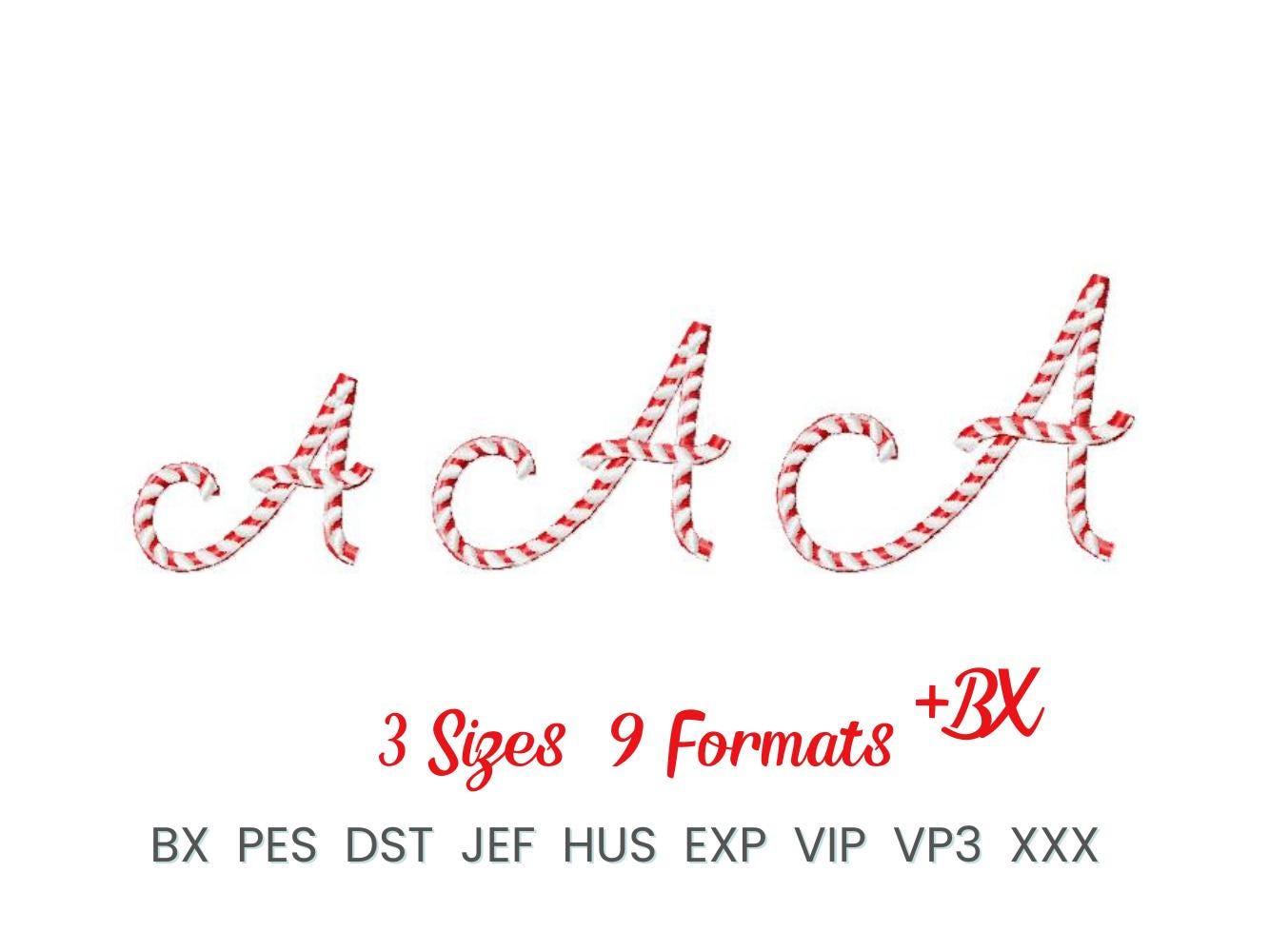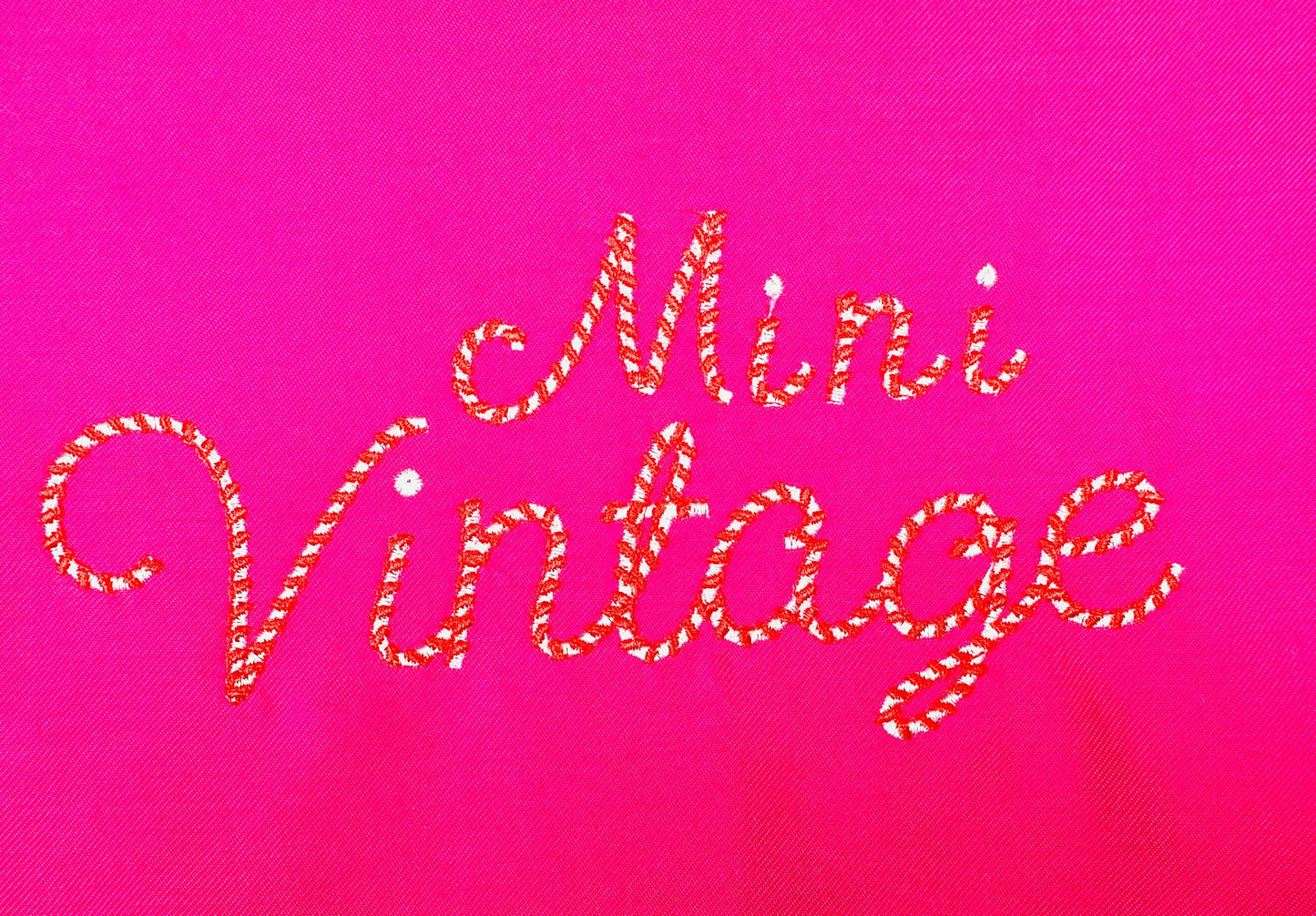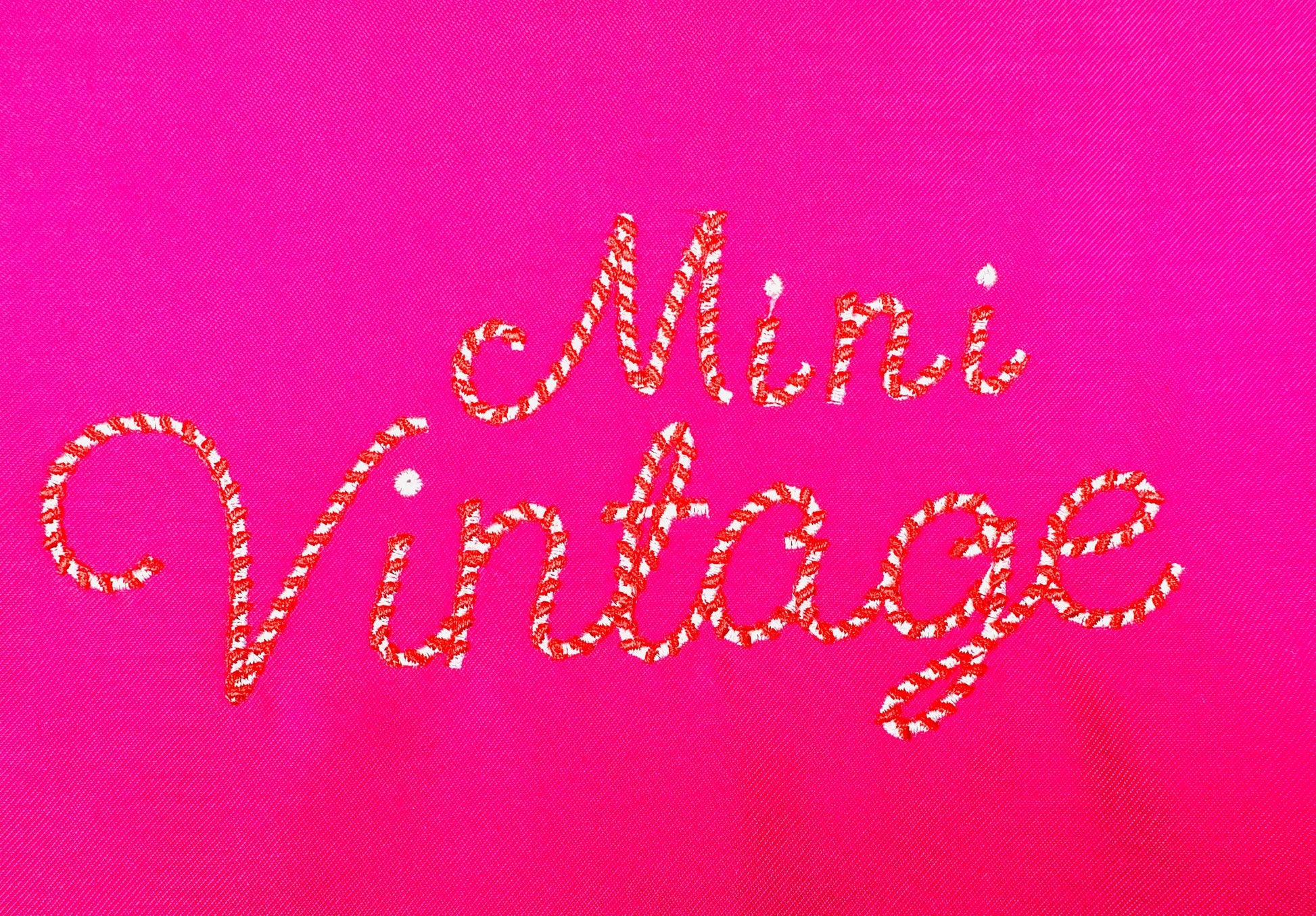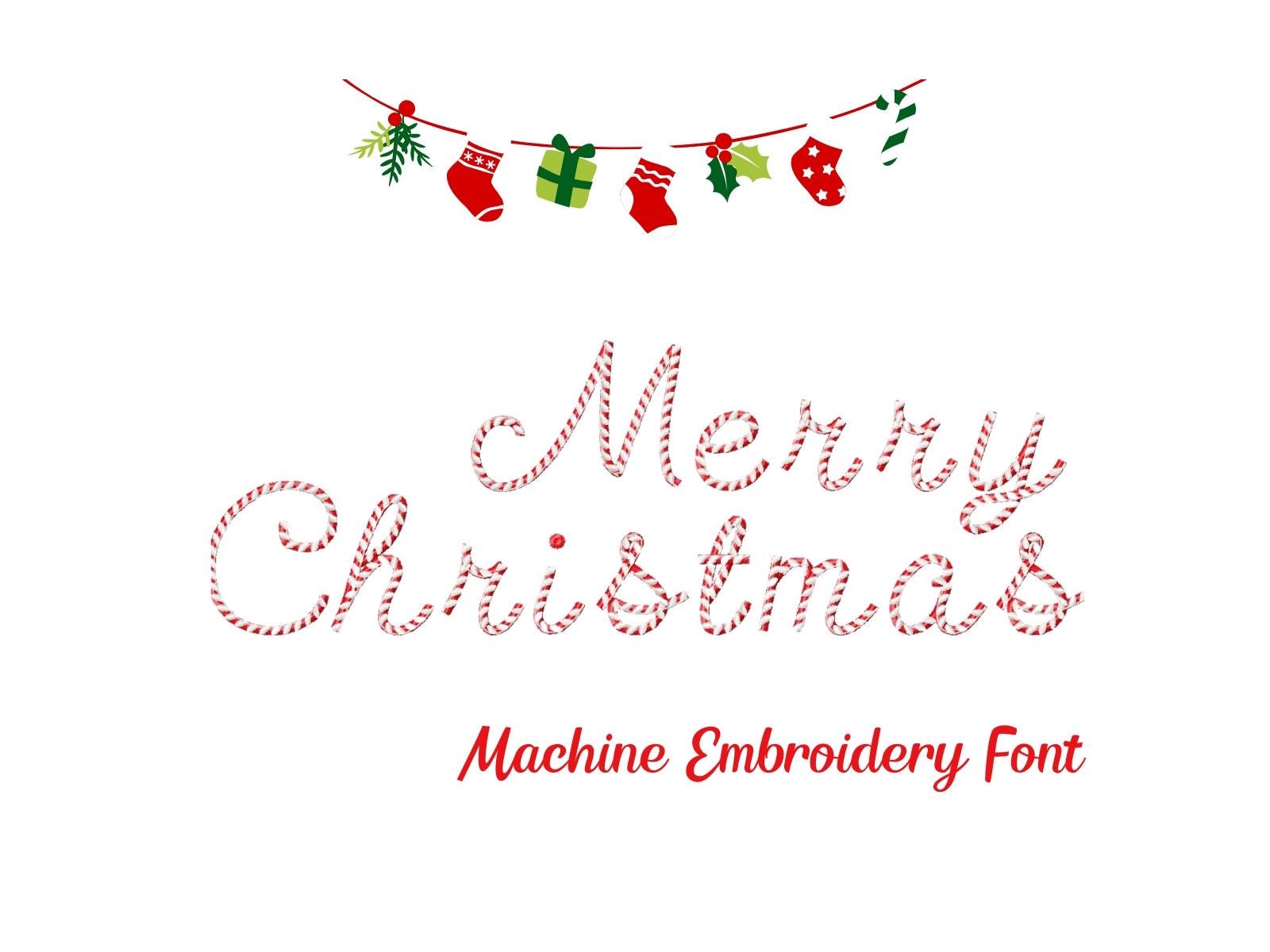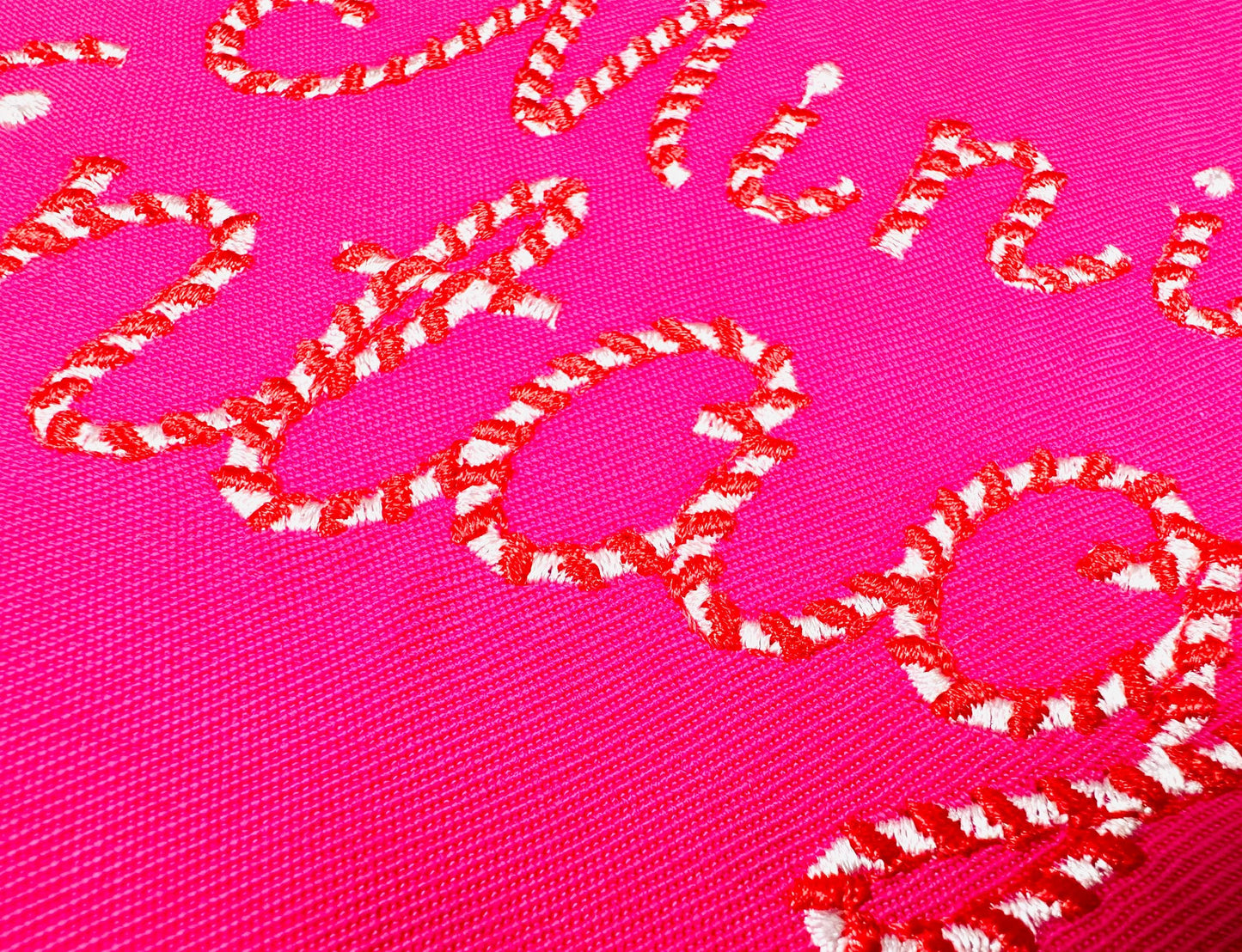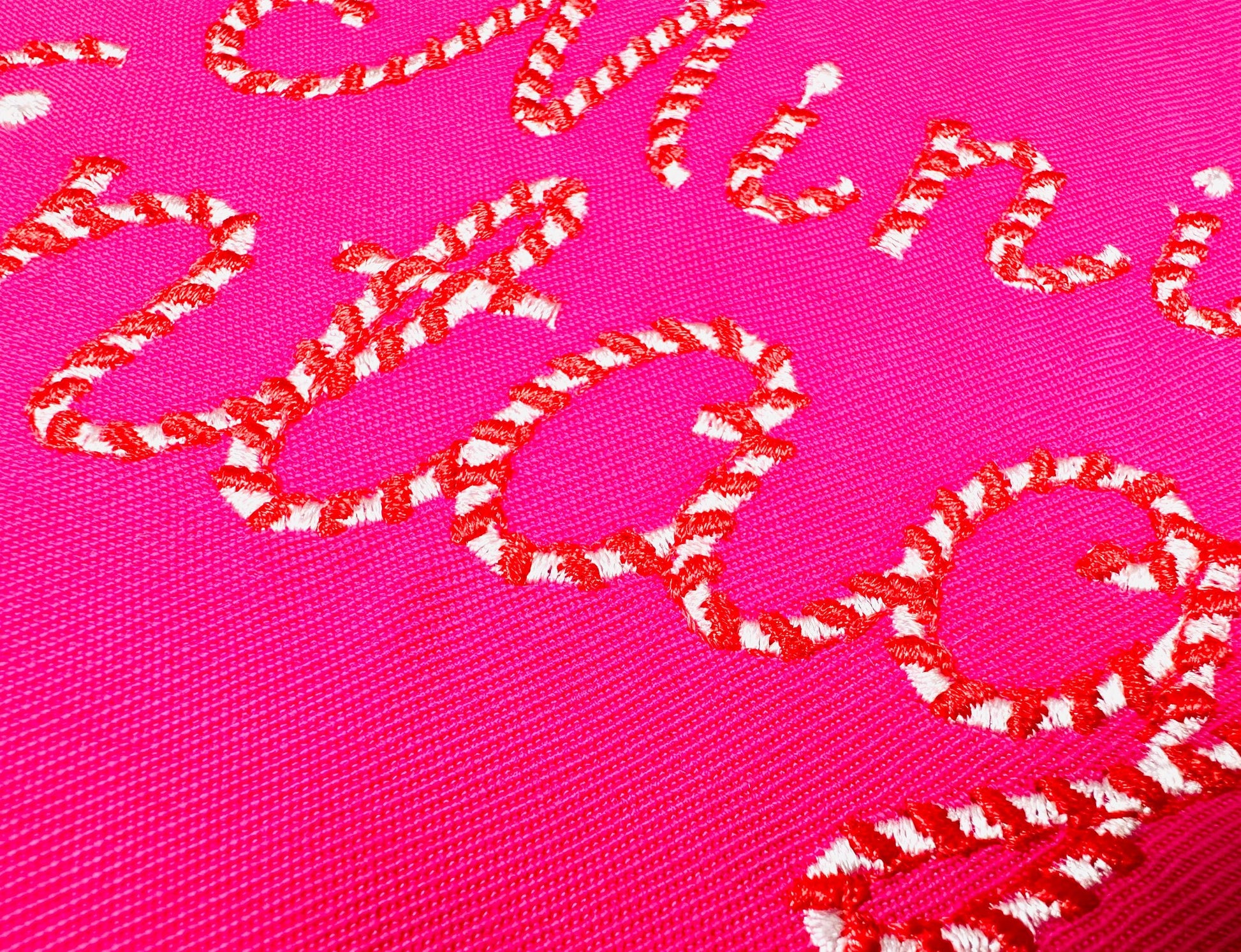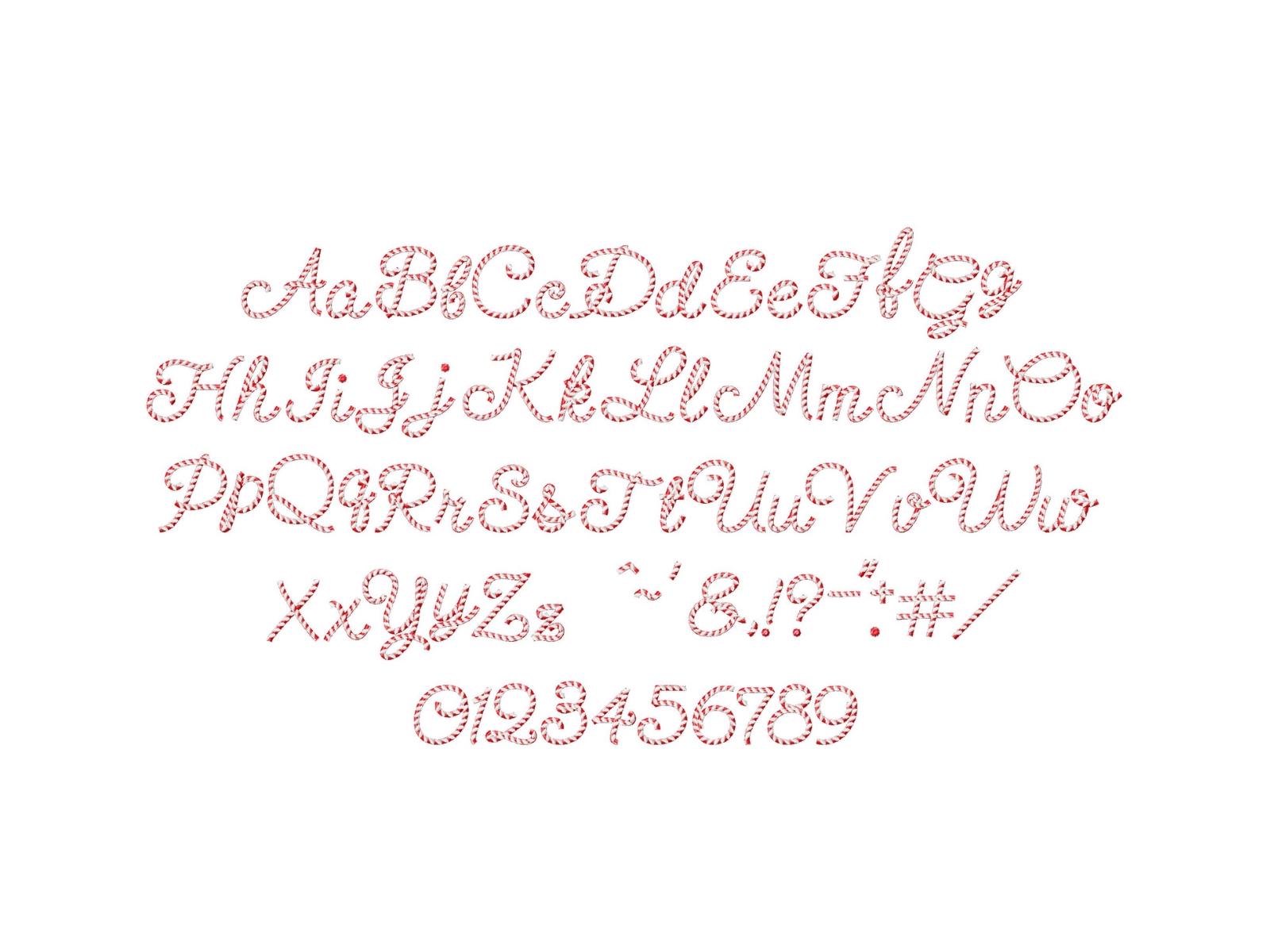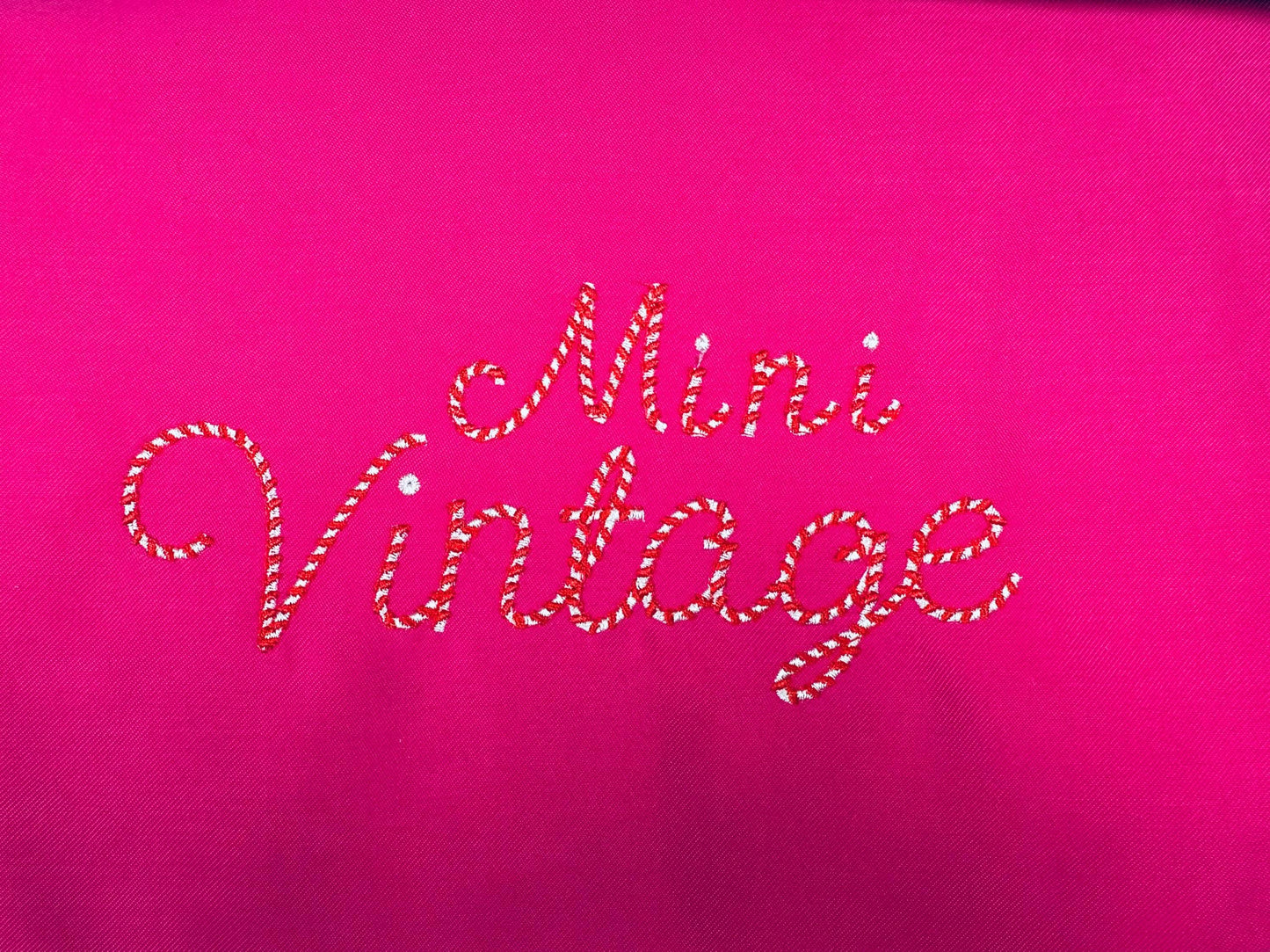
Or click to open the linkA retro candy cane mini font for Christmas stockings, small names and dates on ornaments and gifts.
Uppercase and lowercase letters, numbers and punctuation in three small sizes: 1.2, 1.4 and 1.7 inches.